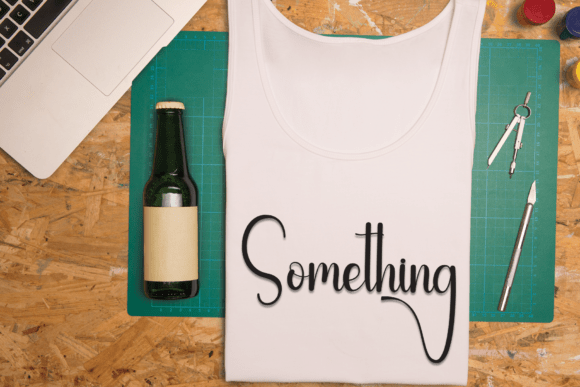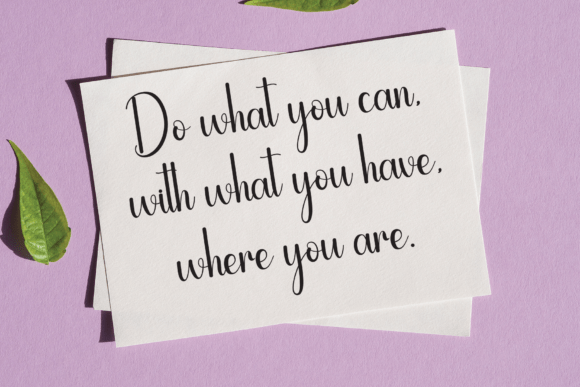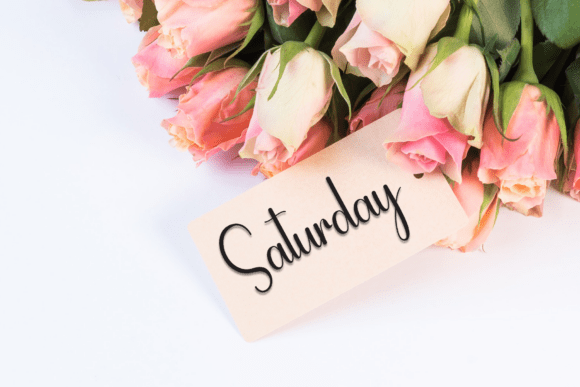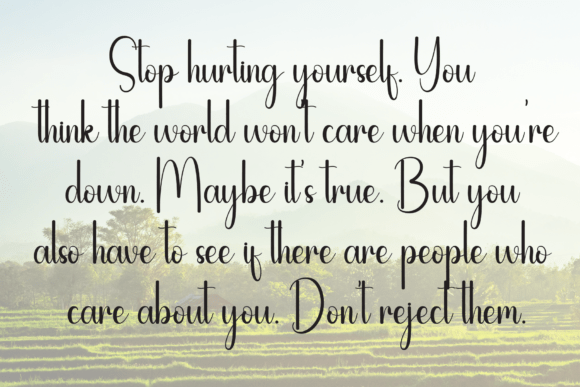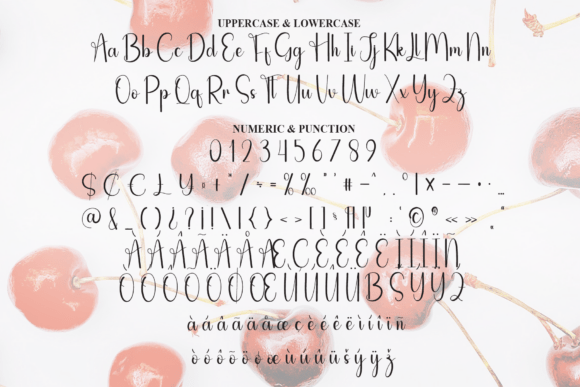
Introducing Cherry Font: Elevate Your Designs with Elegance and Modern Flair
In the world of typography, few fonts manage to strike a balance between elegance and modernity as effortlessly as Cherry Font. This stylish handwritten script font has been turning heads with its unique blend of sophistication and charm, making it an ideal choice for designers and crafters looking to add a personal touch to their projects. Whether you’re working on branding, invitations, social media content, or any other creative endeavor, Cherry Font promises to bring warmth, refinement, and a dash of modern flair to your designs.
The Essence of Cherry Font
Cherry Font is characterized by its flowing strokes and organic curves, which lend it an air of elegance and fluidity. Unlike more rigid or traditional fonts, Cherry’s handwritten nature gives it a personal and approachable feel, making it perfect for projects that require a touch of warmth and personality. Its modern flair ensures that it doesn’t get lost in the sea of traditional script fonts, standing out with a unique charm that’s hard to overlook.
One of the key advantages of Cherry Font is its versatility. Its elegant and modern appeal makes it suitable for a wide range of applications. For branding, it can help create a memorable and sophisticated logo that sets your brand apart. For invitations, it adds a touch of class and personalization that can make any event feel special. Even on social media, where grabbing attention is half the battle, Cherry Font can help your content stand out with its refined and effortless charm.
Why Choose Cherry Font?
- Elegance and Modernity Combined: Cherry Font is not just elegant; it’s also imbued with a modern sense that makes it relevant and appealing to contemporary audiences.
- Personal Touch: Its handwritten nature adds a personal touch to any project, making it more relatable and engaging.
- Versatility: From professional branding to casual social media posts, Cherry Font adapts seamlessly to different contexts.
- Easy to Read: Despite its elegant and cursive nature, Cherry Font maintains a level of readability that’s crucial for effective communication.
How to Use Cherry Font Effectively
To make the most out of Cherry Font, consider the following tips:
- Pair it with Simplicity: Let Cherry Font be the star of your design. Pairing it with simpler fonts or backgrounds can help it shine and prevent your design from feeling cluttered.
- Experiment with Sizes: Don’t be afraid to play with different sizes to emphasize certain parts of your text or to create visual hierarchy.
- Use it for Headers and Highlights: Cherry Font’s elegance makes it perfect for headers, quotes, or any text you want to highlight.
Cherry Font is more than just a typeface; it’s a design statement. With its elegant strokes, organic curves, and modern appeal, it brings a level of sophistication and charm that’s hard to find elsewhere. Whether you’re a designer looking to elevate your branding, a crafter working on personalized invitations, or a social media enthusiast aiming to make your content stand out, Cherry Font is an excellent choice. Its versatility, elegance, and personal touch make it a valuable addition to any creative project. So, why settle for ordinary when you can make your designs extraordinary with Cherry Font?
Embrace the elegance and modernity of Cherry Font in your next project. Let its flowing strokes and organic curves tell your story with style and sophistication. Discover the difference that a beautiful, handwritten script font can make in your designs today.